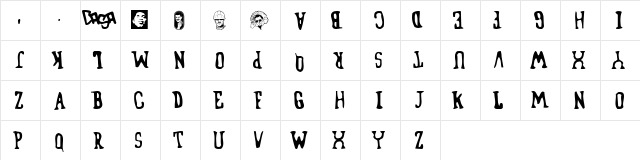
Blufunken (side A) Regular
Blufunken (side A) has an approachable, lighthearted character — its loose, expressive forms are well-suited to children's content, casual branding, and fun-first design.
Font Pairing: Pairs well with a rounded or humanist sans for body copy, maintaining the friendly tone without relying on Blufunken (side A) to carry extended reading.
Pro Tip: Use Blufunken (side A) at larger display sizes where its expressive character can land. Pair with a clean, simple sans for body copy to maintain readability.